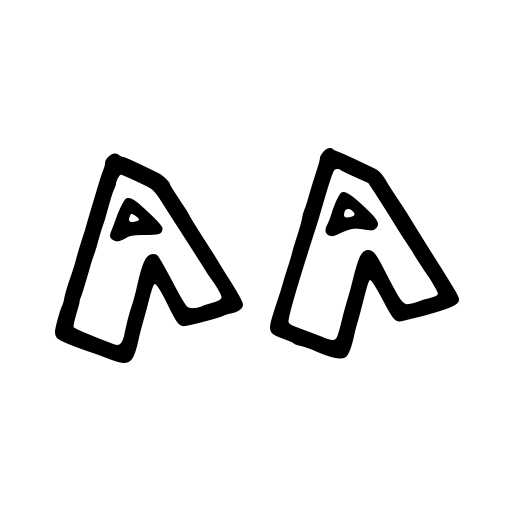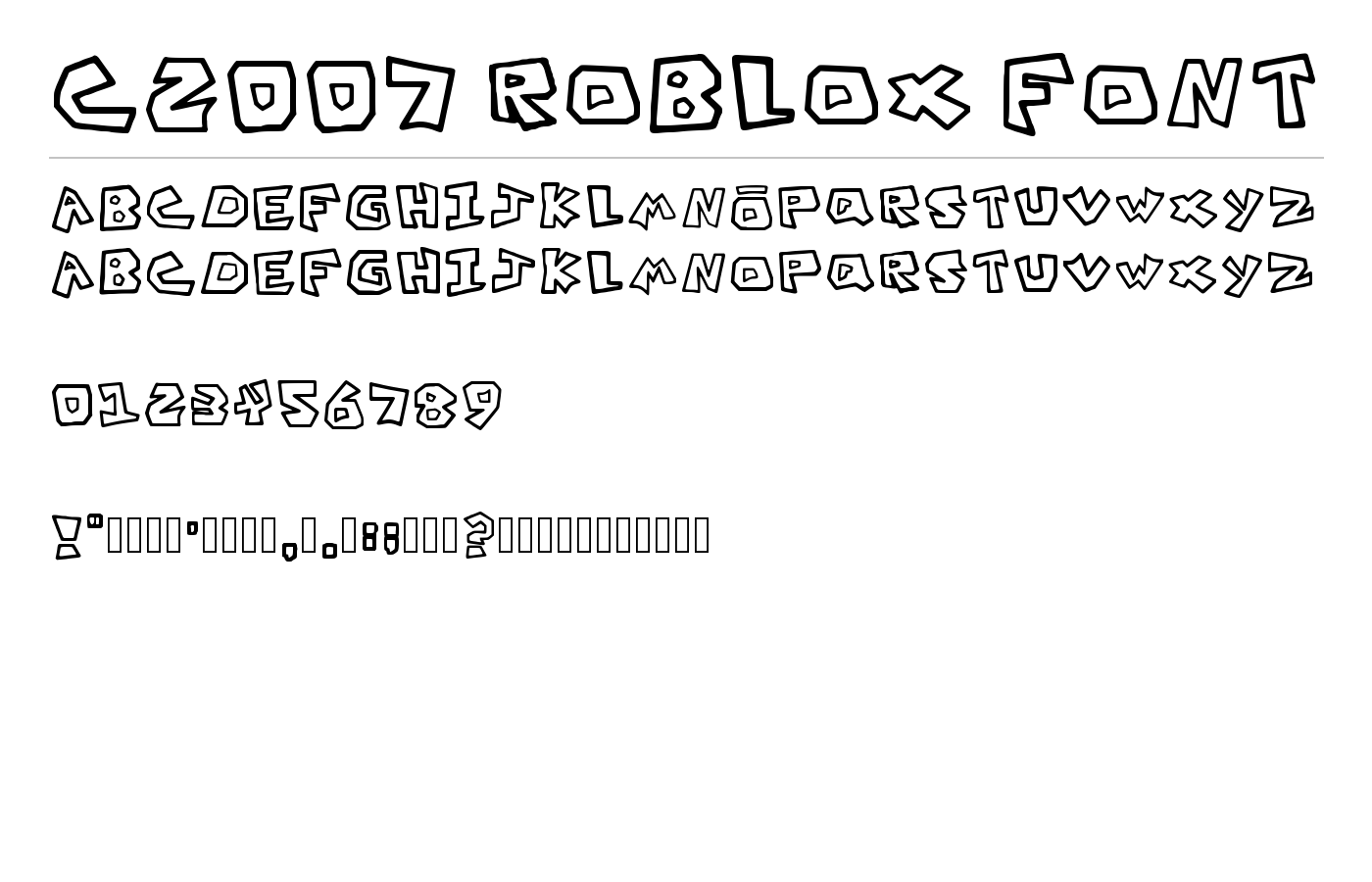
C2007 Roblox Font is a playful, hand-drawn sans serif typeface characterized by its bold, irregular strokes and quirky letterforms that evoke a fun, informal vibe. Its uneven outlines and unique shapes give it a childlike, energetic feel, making it ideal for creative projects, games, and casual branding that seek an approachable and whimsical style. This font works best in headlines, logos, and graphic designs where a lively, youthful personality is desired.
C2007 Roblox Font